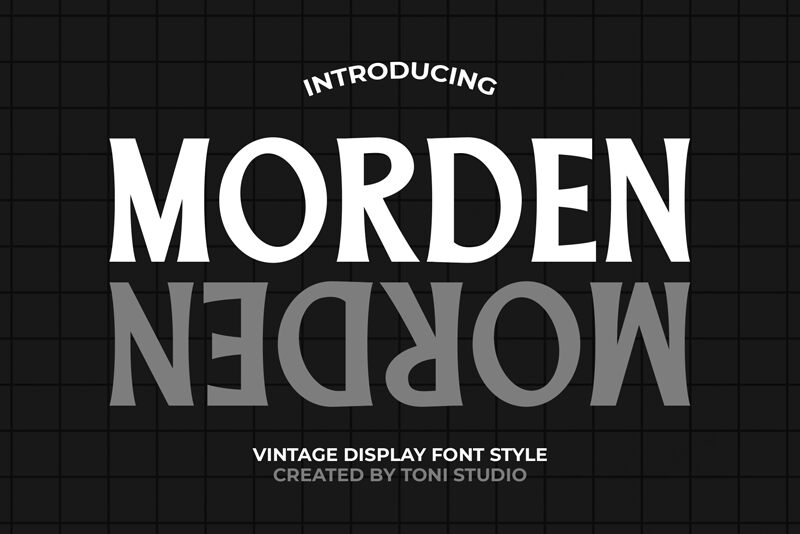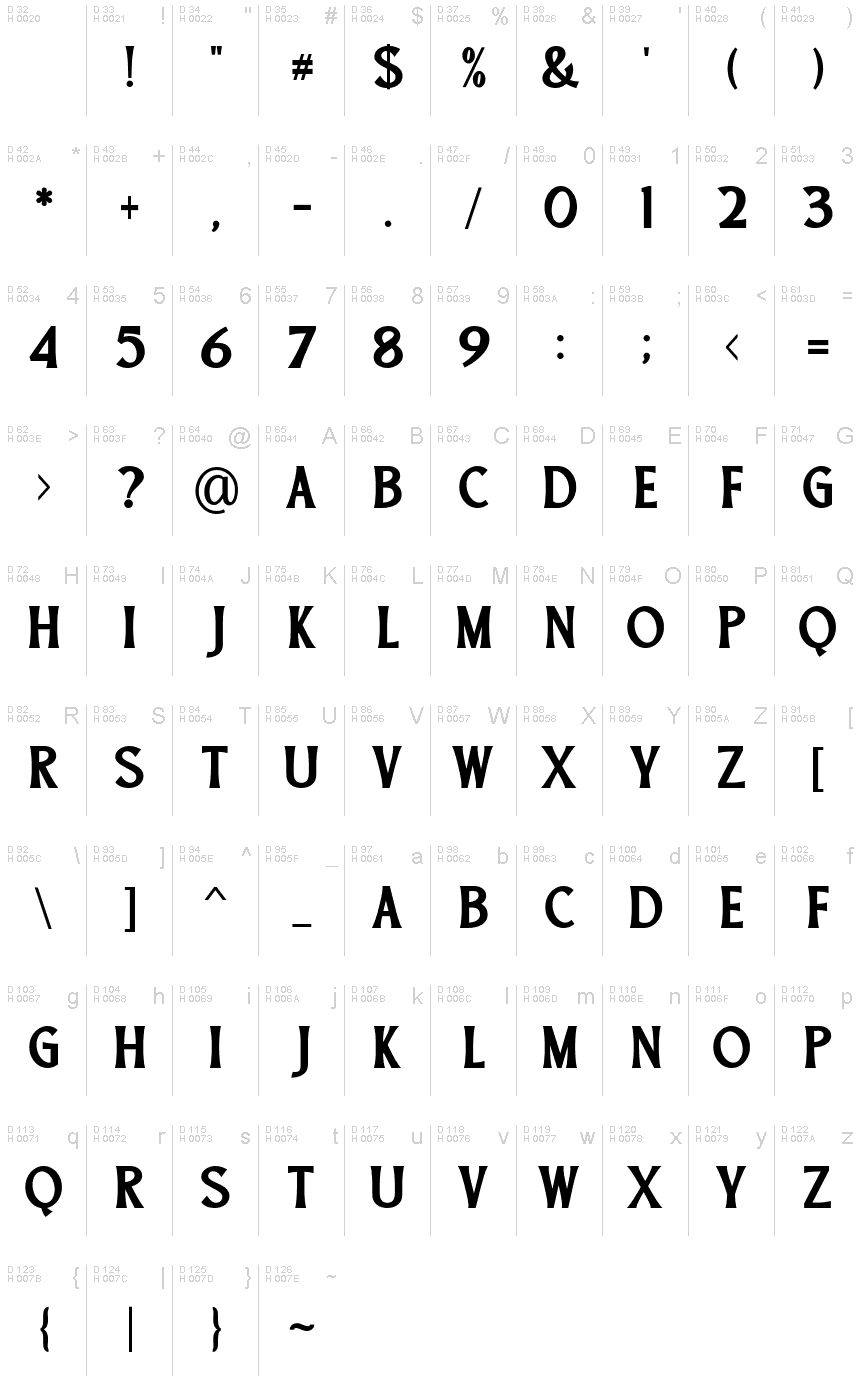
Morden
Morden, a stunning display font created by ToniStudio, is the perfect epitome of vintage charm and elegance. With its semi-bold weight and classic style, Morden is sure to make any project stand out. This font is suitable for various projects such as invitations, posters, logos, packaging designs, and even social media graphics. Its timeless appeal adds a touch of sophistication to any design it graces. Morden's versatile nature makes it perfect for both modern and traditional designs alike. Get your hands on this beautiful typeface today and give your projects the vintage flair they deserve!